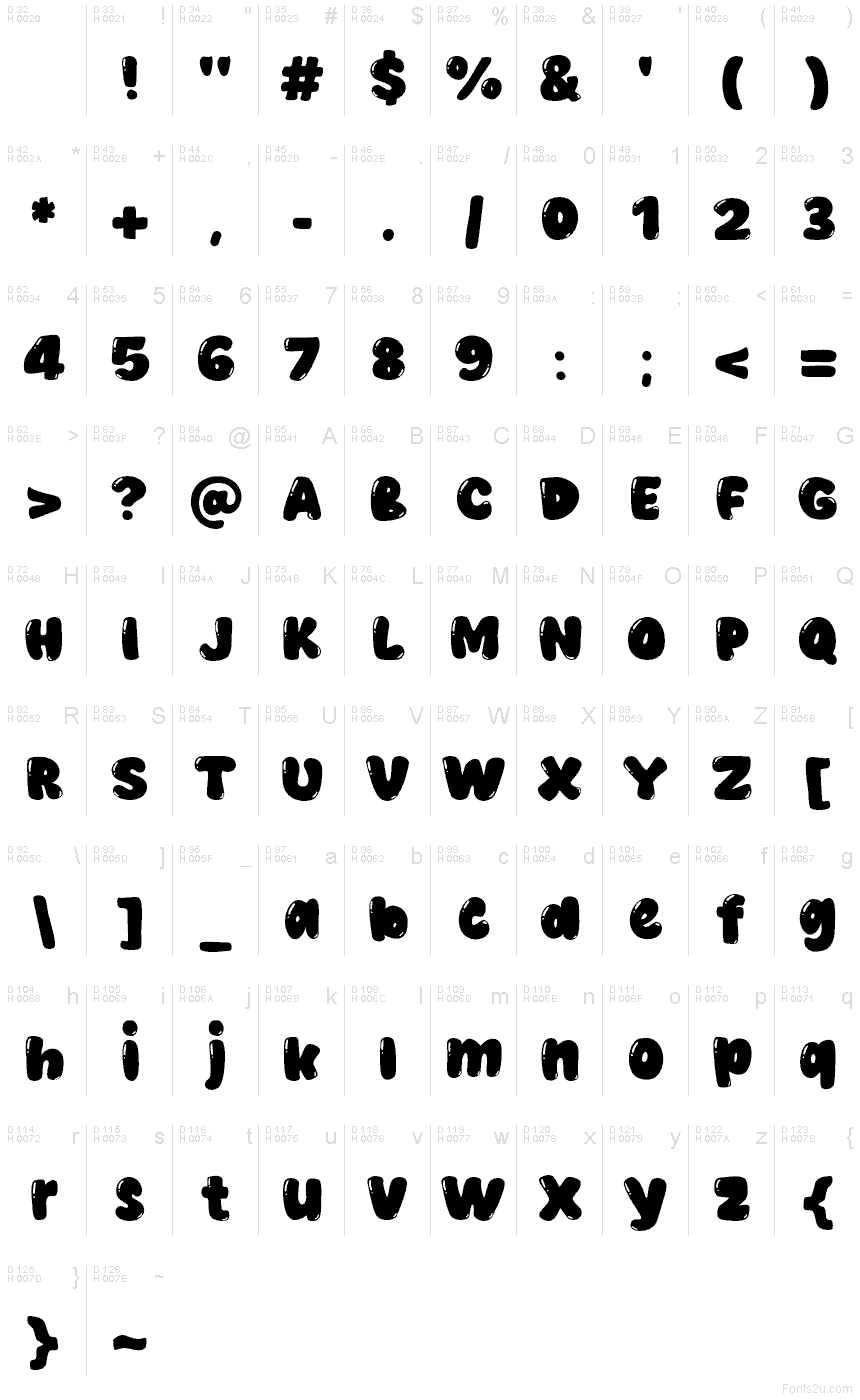
Moofu Burst
Moofu Burst font by Origin Type is a playful, cartoonish, and boldly designed typeface. This modern decorative and display font has plenty of room to display its bubbly character thanks to its rather impressive width. The letters are thick with round interiors that look friendly and inviting even when read on their own.
Use Moofu Burst for hover effects, descriptions for packages, covers for books and albums or movie posters; advertisement materials that promote candies or chocolates; video games that need unique title screens besides many other great uses.